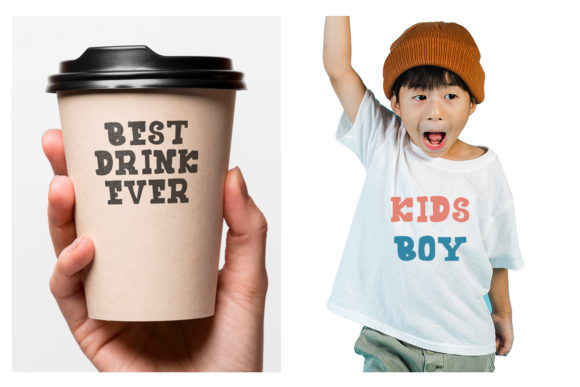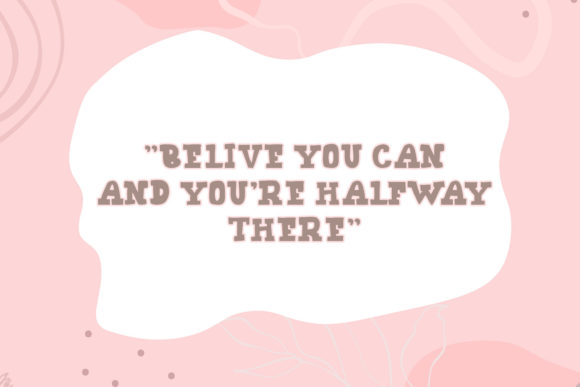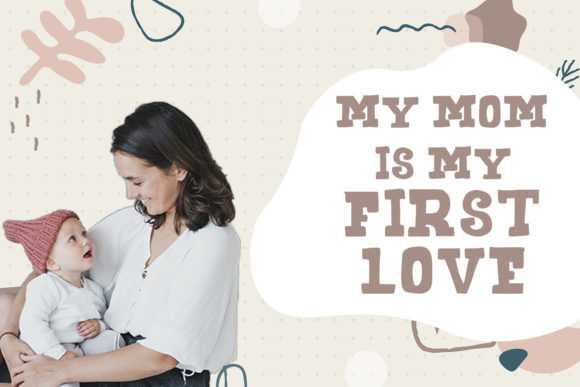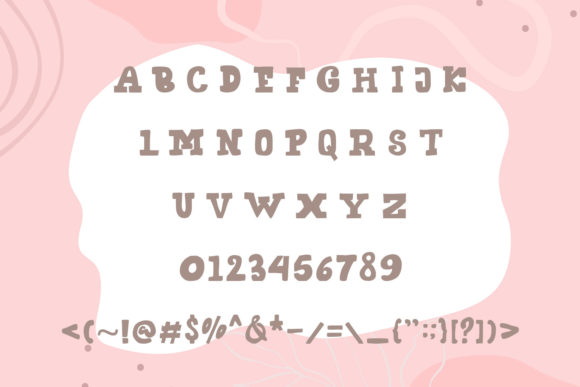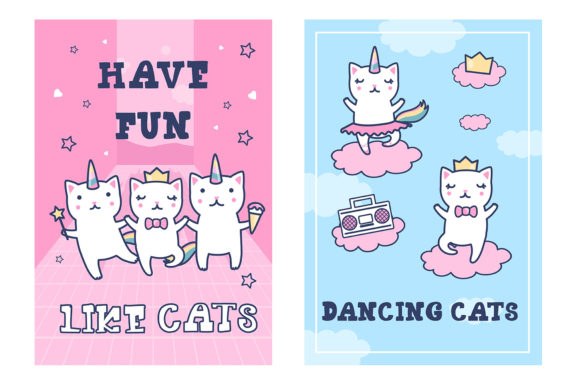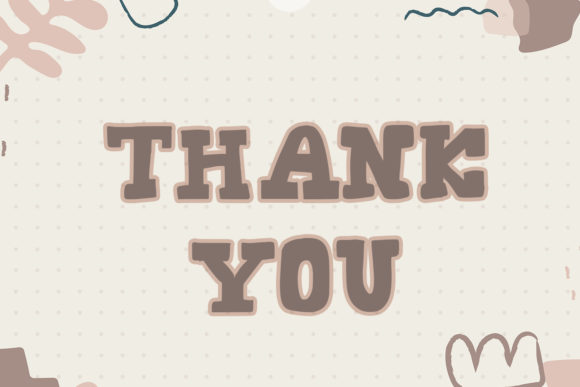
Introducing Cheese Rush Font: The Ultimate Display Font for Bold Creations
Are you tired of using the same old fonts for your designs? Look no further! Cheese Rush Font is a bold and thick lettered display font that is sure to elevate your creations to the next level. With its vintage style, this font is perfect for designers and crafters who want to add a touch of nostalgia and sophistication to their work.
What is Cheese Rush Font?
Cheese Rush Font is a display font that features bold and thick lettering with a vintage twist. Its unique design makes it stand out from other fonts, and its versatility ensures that it can be used for a wide range of projects. Whether you’re working on a logo, a poster, a website, or any other design project, Cheese Rush Font is sure to make a statement.
Key Features of Cheese Rush Font
- Bold and Thick Lettering: Cheese Rush Font features bold and thick lettering that is sure to grab attention.
- Vintage Style: The font’s vintage style gives it a unique and nostalgic feel that is perfect for designs that require a touch of sophistication.
- Versatile: Cheese Rush Font can be used for a wide range of projects, from logos and posters to websites and more.
- Easily Readable: Despite its bold and thick lettering, Cheese Rush Font is easily readable, making it perfect for designs that require a clear and concise message.
Why You Need Cheese Rush Font in Your Fonts’ Library
Cheese Rush Font is an incredibly valuable asset to have in your fonts’ library. Its unique design and versatility make it a font that can be used for a wide range of projects, and its bold and thick lettering ensures that it will grab attention. Whether you’re a designer, a crafter, or simply someone who loves to create, Cheese Rush Font is a must-have font that will elevate your creations to the next level.
How to Use Cheese Rush Font
Cheese Rush Font is easy to use and can be incorporated into your designs in a variety of ways. Here are a few ideas to get you started:
- Logos: Use Cheese Rush Font to create a bold and eye-catching logo for your business or brand.
- Posters: Create a stunning poster with Cheese Rush Font that will grab attention and convey your message clearly.
- Websites: Use Cheese Rush Font to add a touch of sophistication and elegance to your website.
- Social Media Graphics: Create eye-catching social media graphics with Cheese Rush Font that will help you stand out from the crowd.
Tips and Tricks for Getting the Most Out of Cheese Rush Font
Here are a few tips and tricks to help you get the most out of Cheese Rush Font:
- Experiment with Different Colors: Cheese Rush Font looks great in a variety of colors, so don’t be afraid to experiment and find the perfect color for your design.
- Use it with Other Fonts: Cheese Rush Font pairs well with other fonts, so try using it with a complementary font to create a unique and interesting design.
- Play with Different Sizes: Cheese Rush Font looks great in a variety of sizes, so try experimenting with different sizes to find the perfect one for your design.
Cheese Rush Font is a bold and thick lettered display font that is sure to elevate your creations to the next level. With its vintage style and versatility, this font is perfect for designers and crafters who want to add a touch of sophistication and elegance to their work. Whether you’re working on a logo, a poster, a website, or any other design project, Cheese Rush Font is a must-have font that will help you create stunning designs that will grab attention and convey your message clearly.